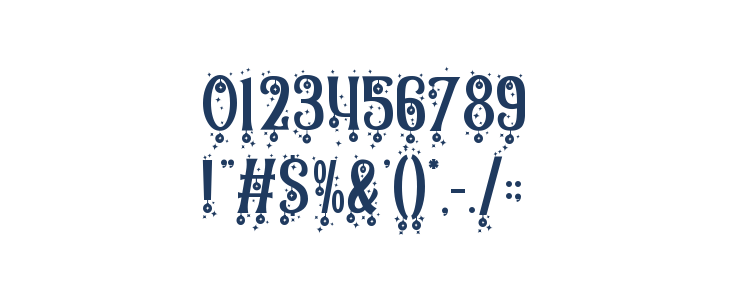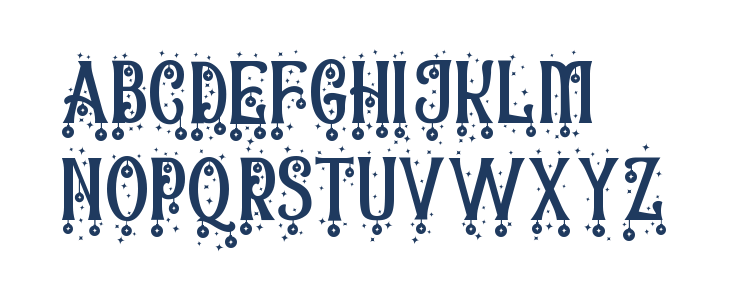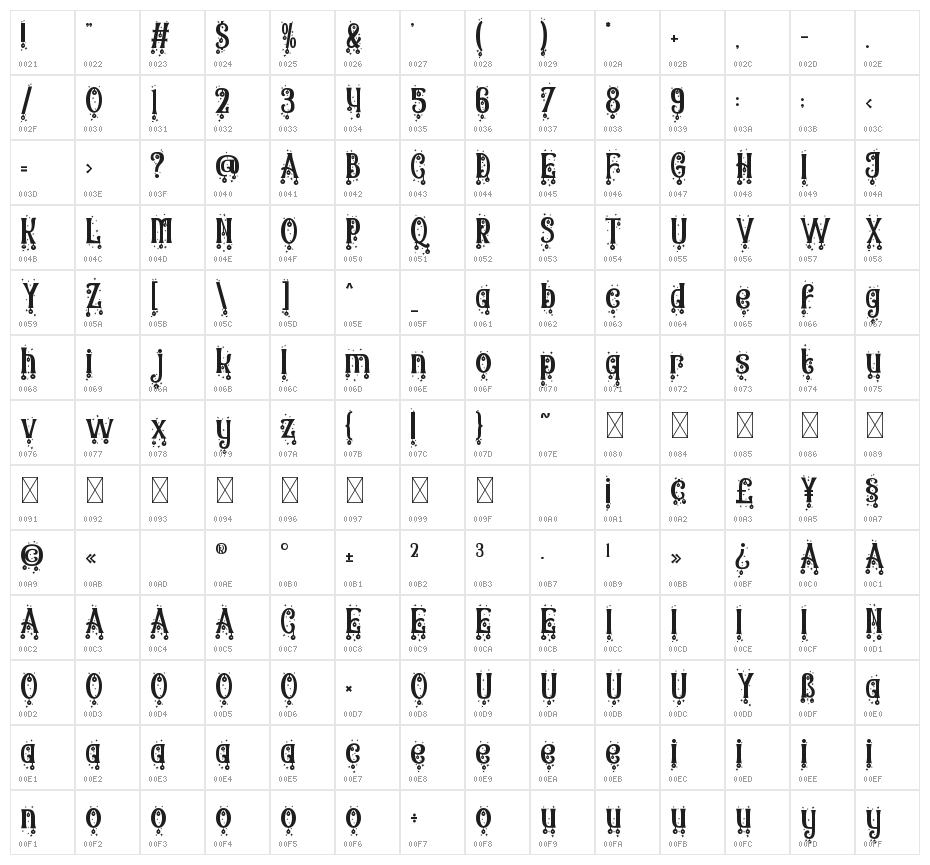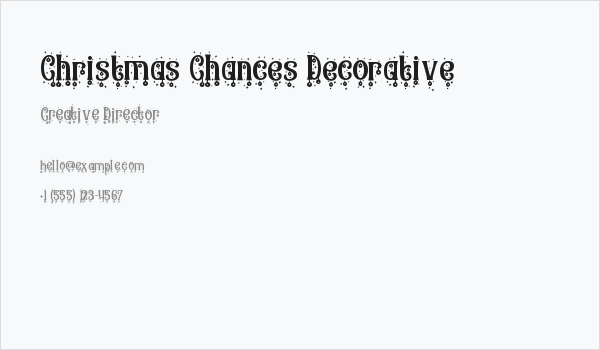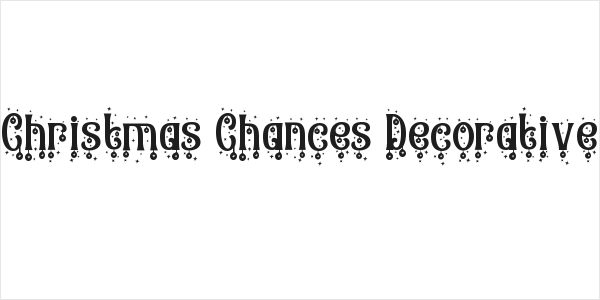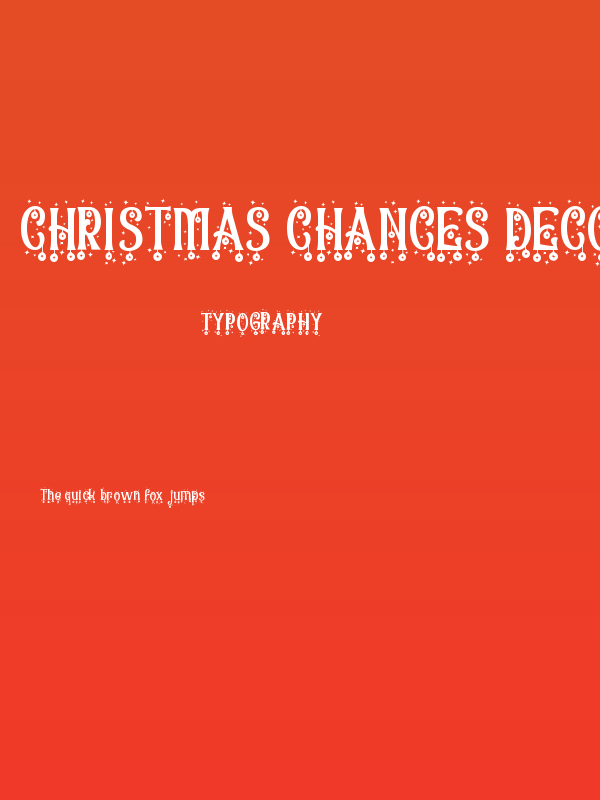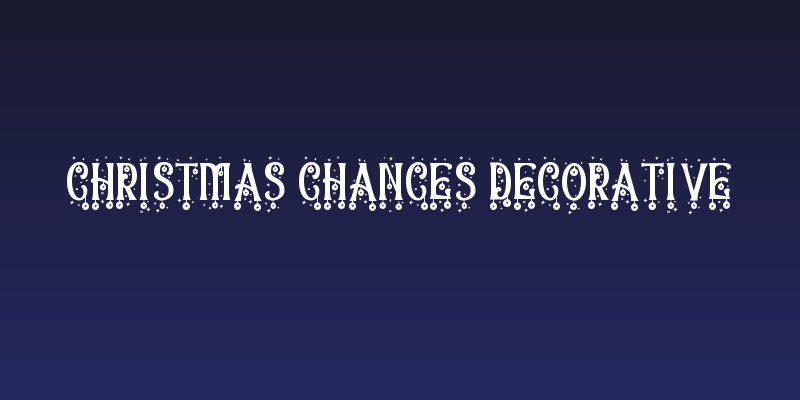
Christmas Chances Decorative Font
Christmas Chances Decorative Description
A whimsical, decorative typeface featuring playful star and ornament embellishments on each character, evoking a festive holiday atmosphere. The letterforms are bold with rounded terminals and unique festive accents.
| Overall Style | Decorative, Festive, Playful |
| Use Case | Headlines, Posters, Greeting cards, Event signage |
| Proposed Projects | Holiday cards, Christmas event posters, festive invitations, seasonal branding, children's party materials. |